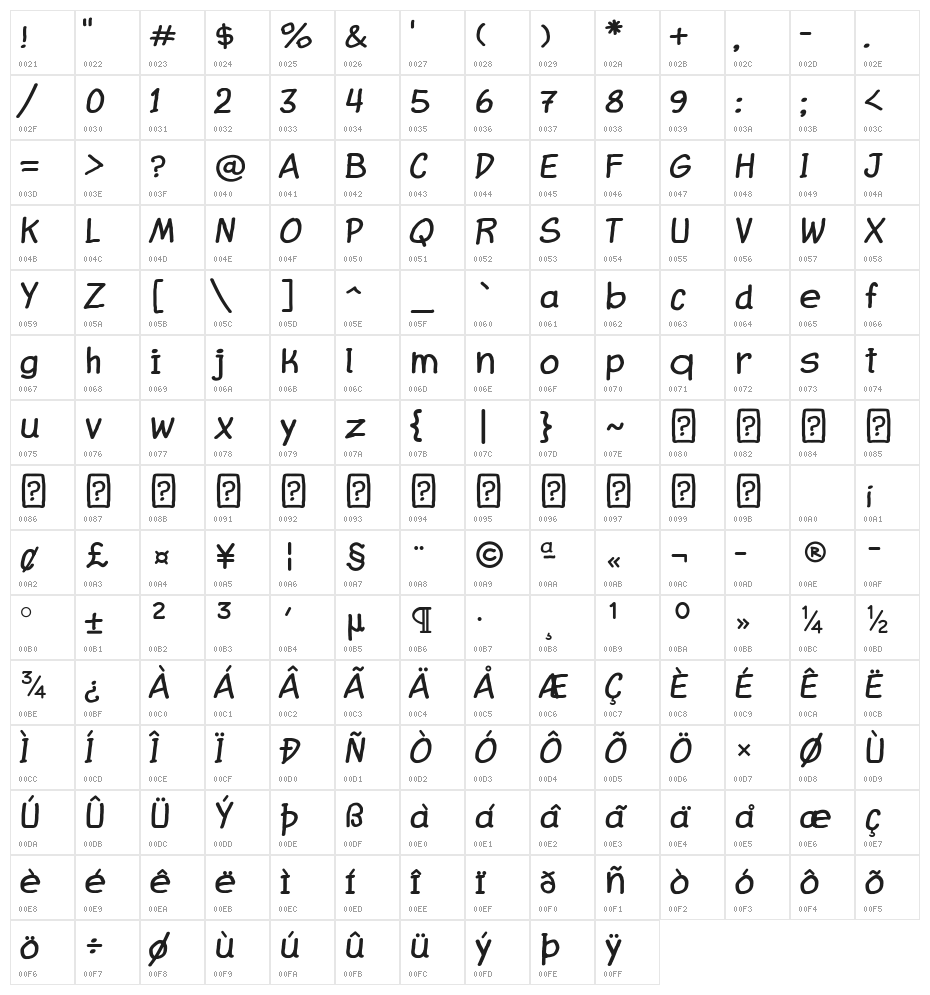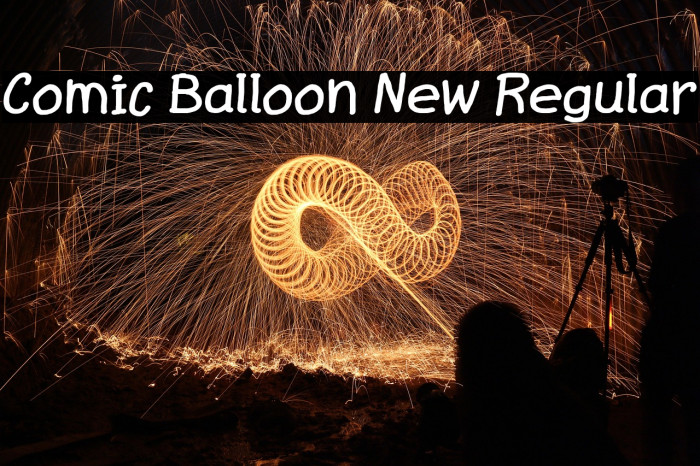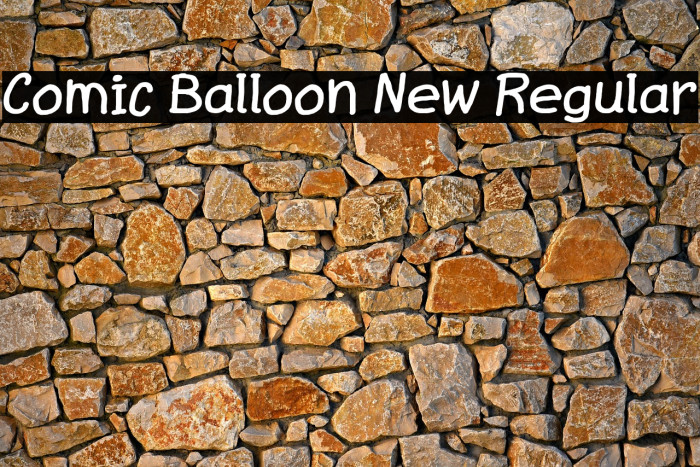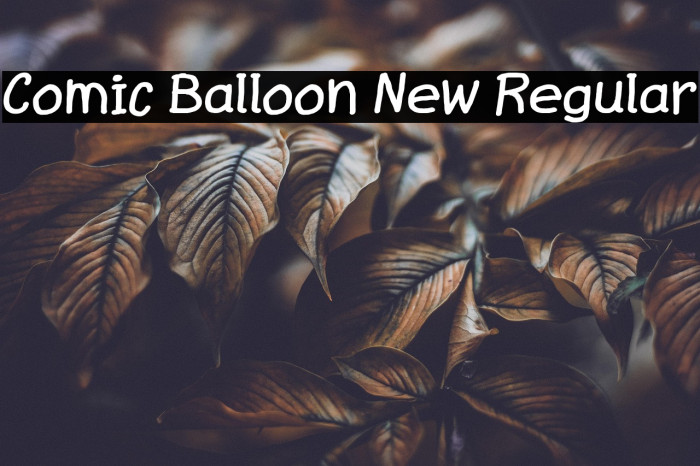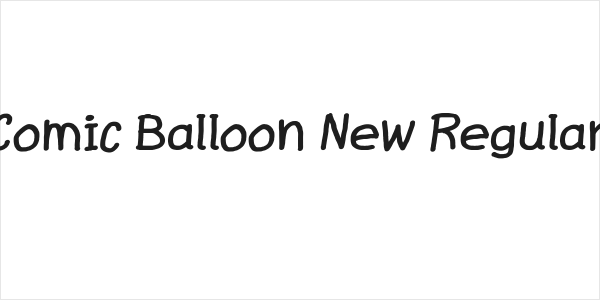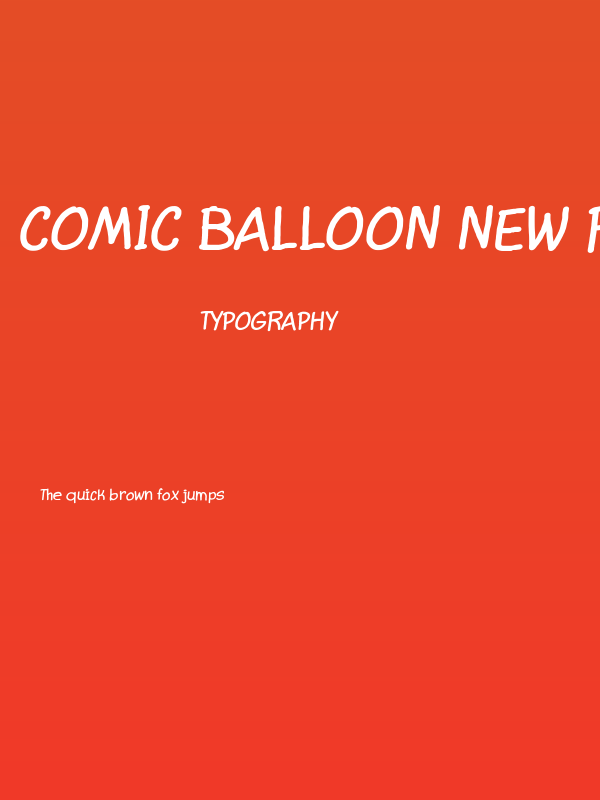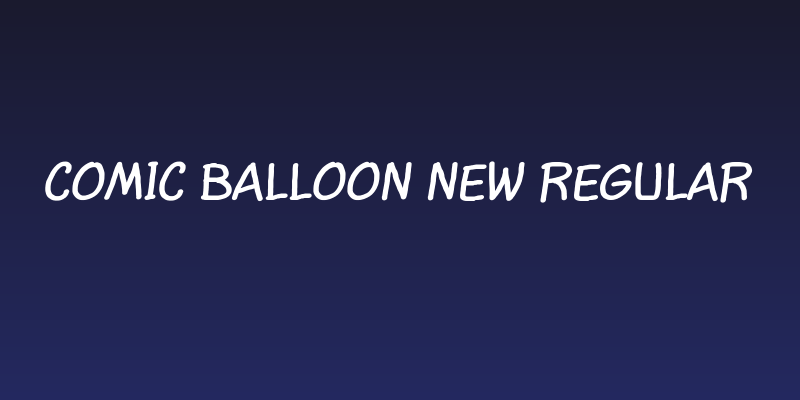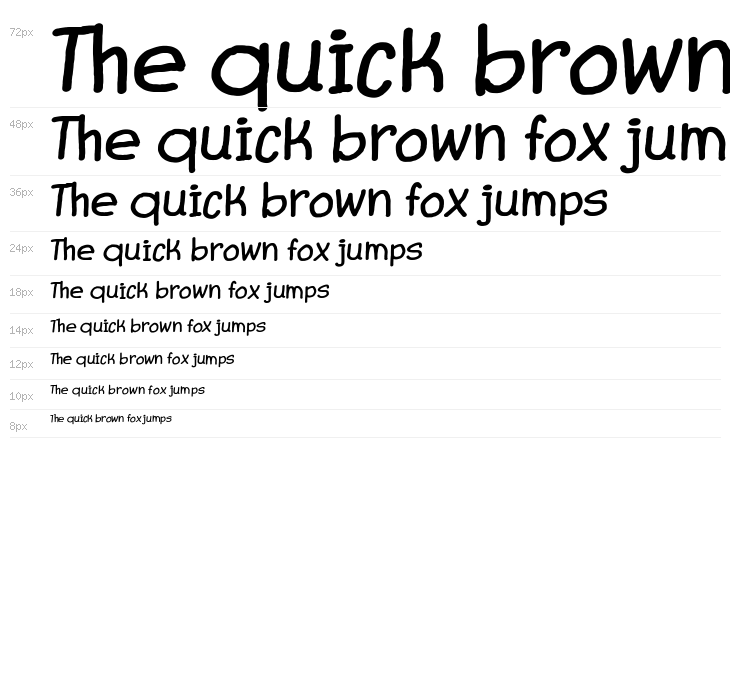
Comic Balloon New Regular Font
Comic Balloon New Regular Description
This playful and whimsical font features rounded, balloon-like characters that convey a sense of fun and lightheartedness. The strokes are consistent in thickness, giving it a uniform appearance, while the slightly irregular shapes add a touch of informality. The font is highly legible, with clear distinctions between each character, making it suitable for casual and creative projects. Its friendly and approachable style is perfect for engaging audiences in a relaxed manner.
| Proposed Projects | Ideal for comic books, children's books, playful branding, party invitations, and casual social media graphics. |